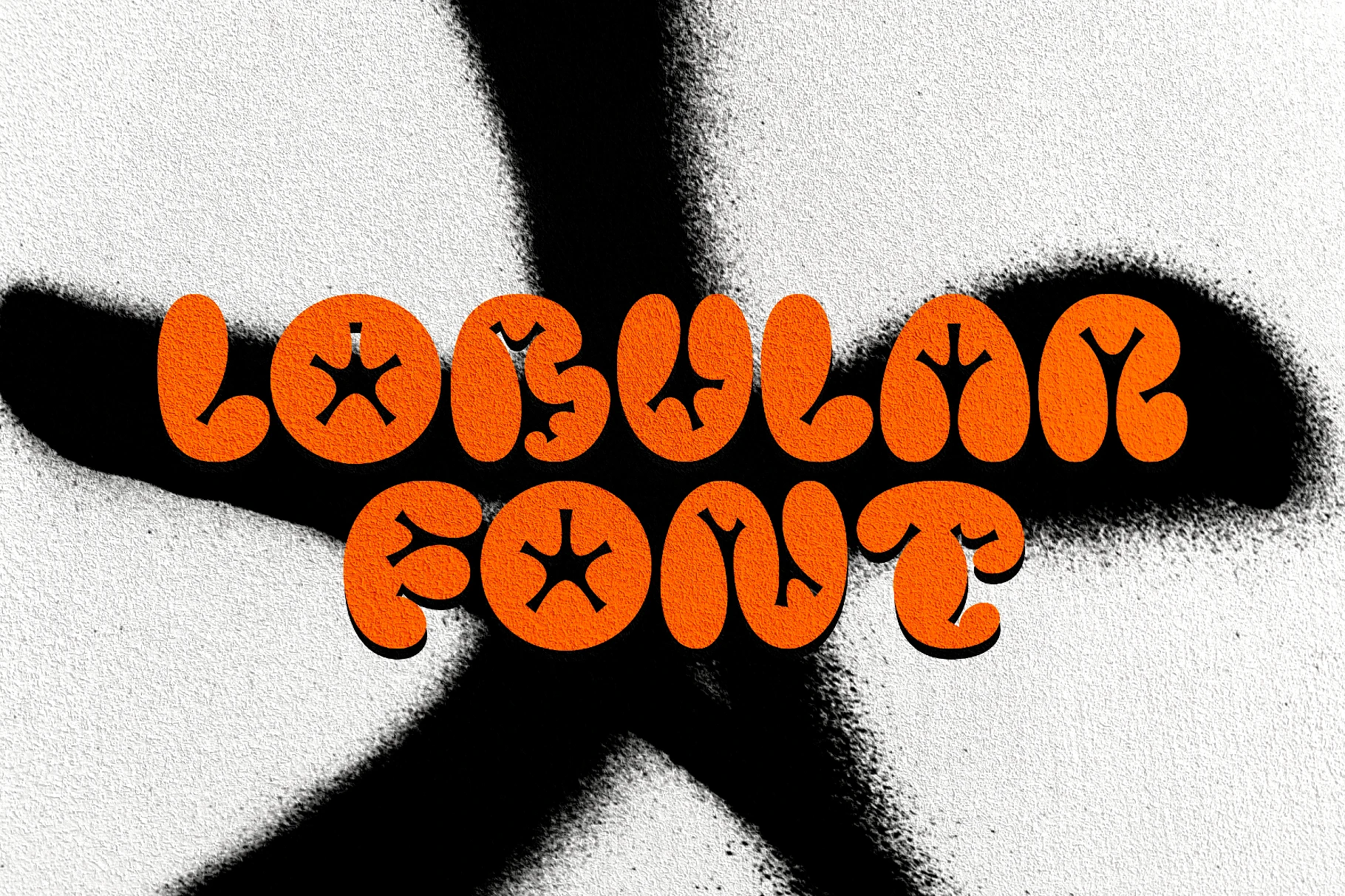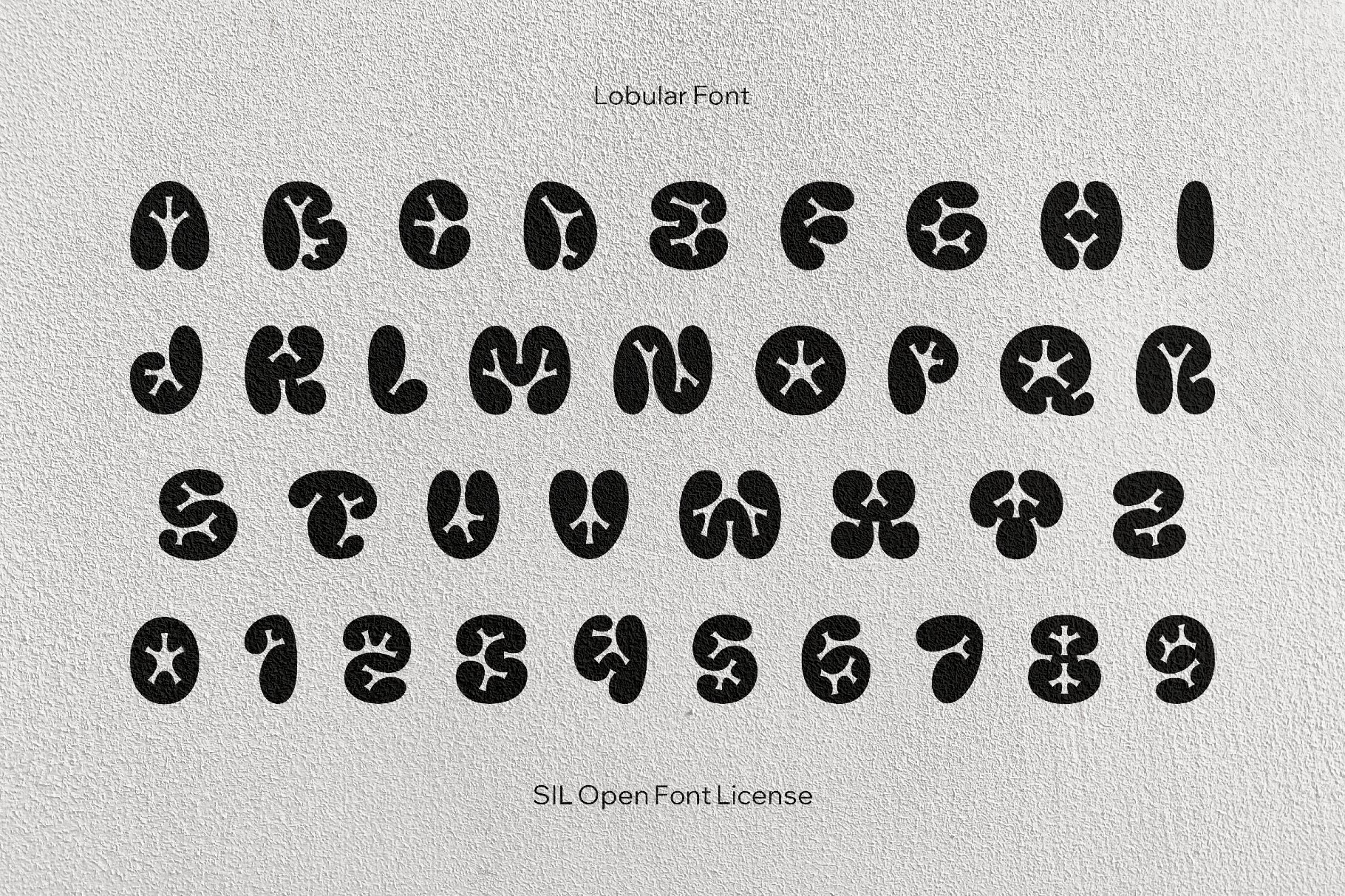
Lobular Font
Lobular is a bubbly, streetwise display that nods to hand-painted late-’90s graffiti tags. You can use it for streetwear and skate logos, poster headlines, music and event artwork, party flyers, sticker-style branding, youth events, album art, snack packaging, apparel graphics, YouTube and streaming thumbnails.
- Uppercase letters only.
- International characters with multilingual support across extended Latin scripts.